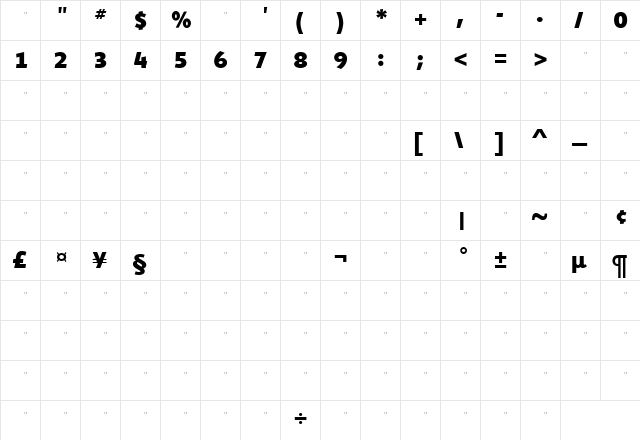
ShinnExtraBoldTab Regular
| Foundry | Red Rooster Typefounders |
Design Context for ShinnExtraBoldTab Typeface
ShinnExtraBoldTab takes a measured approach to typography — its balanced proportions and neutral character make it a reliable workhorse for both digital and print work. Its bold stroke weight gives it real presence on the page.